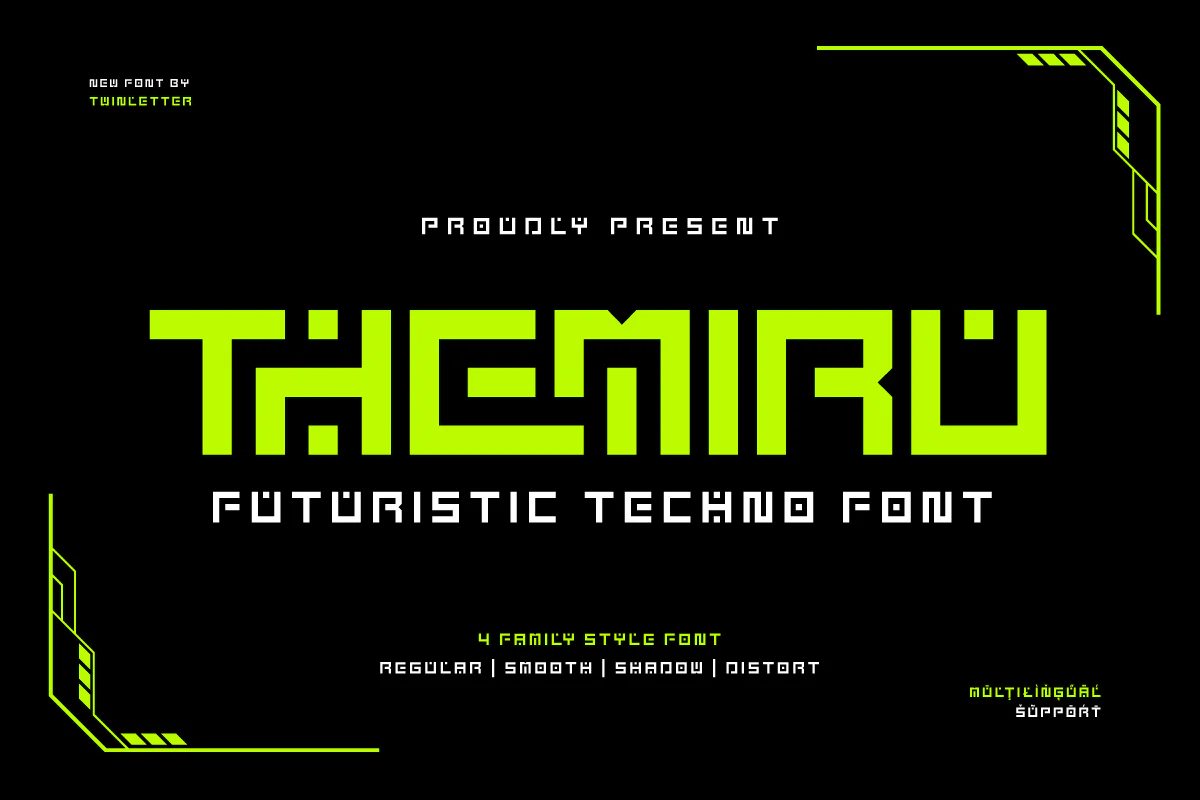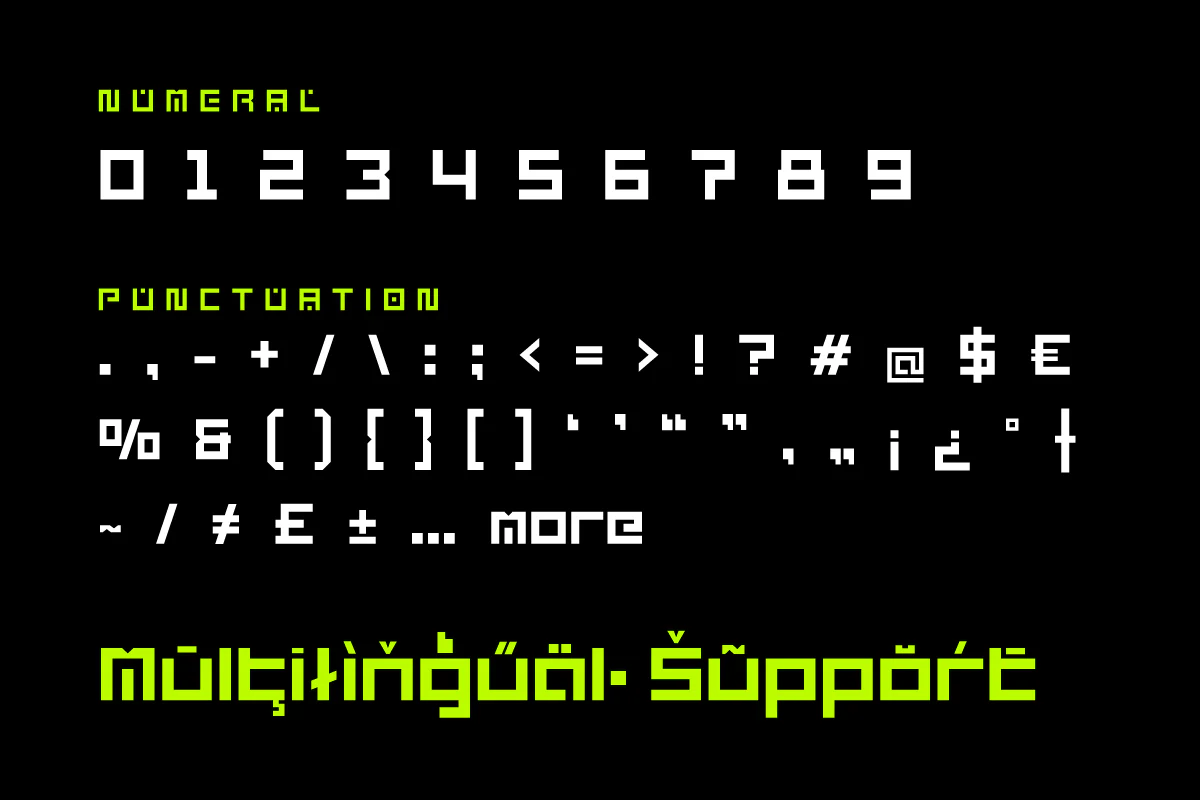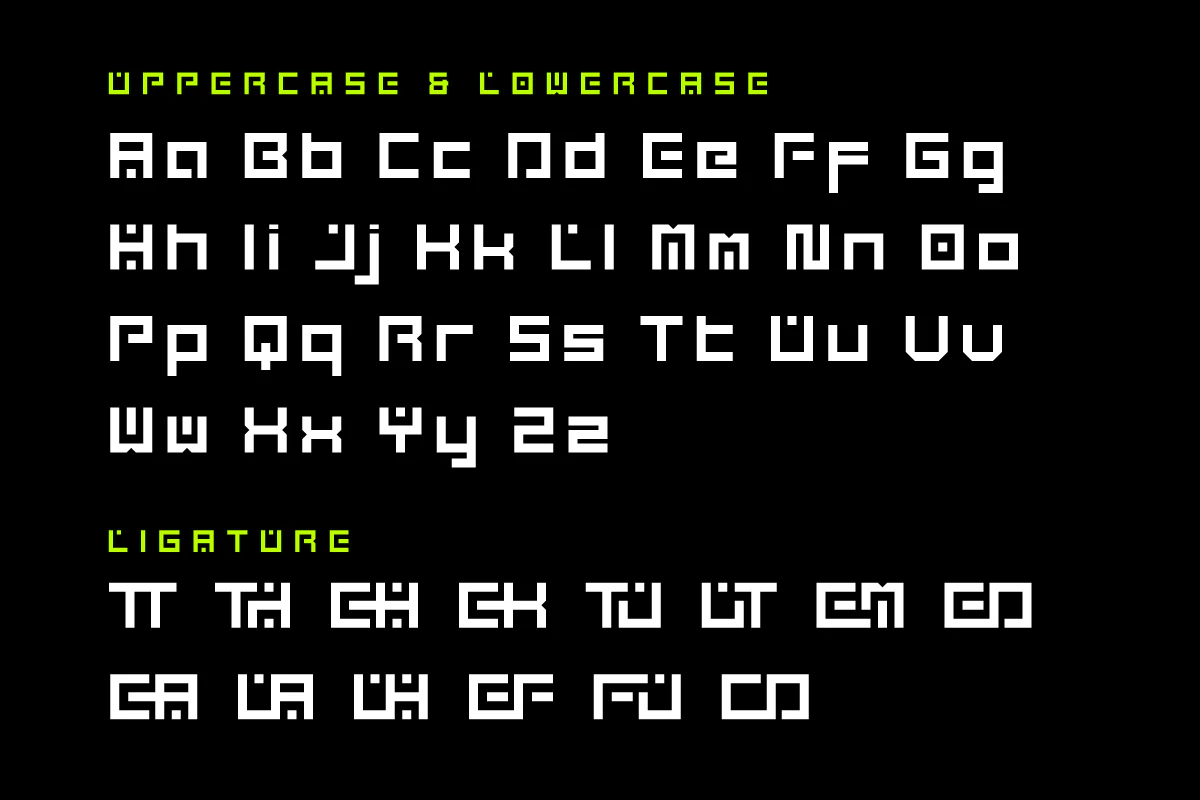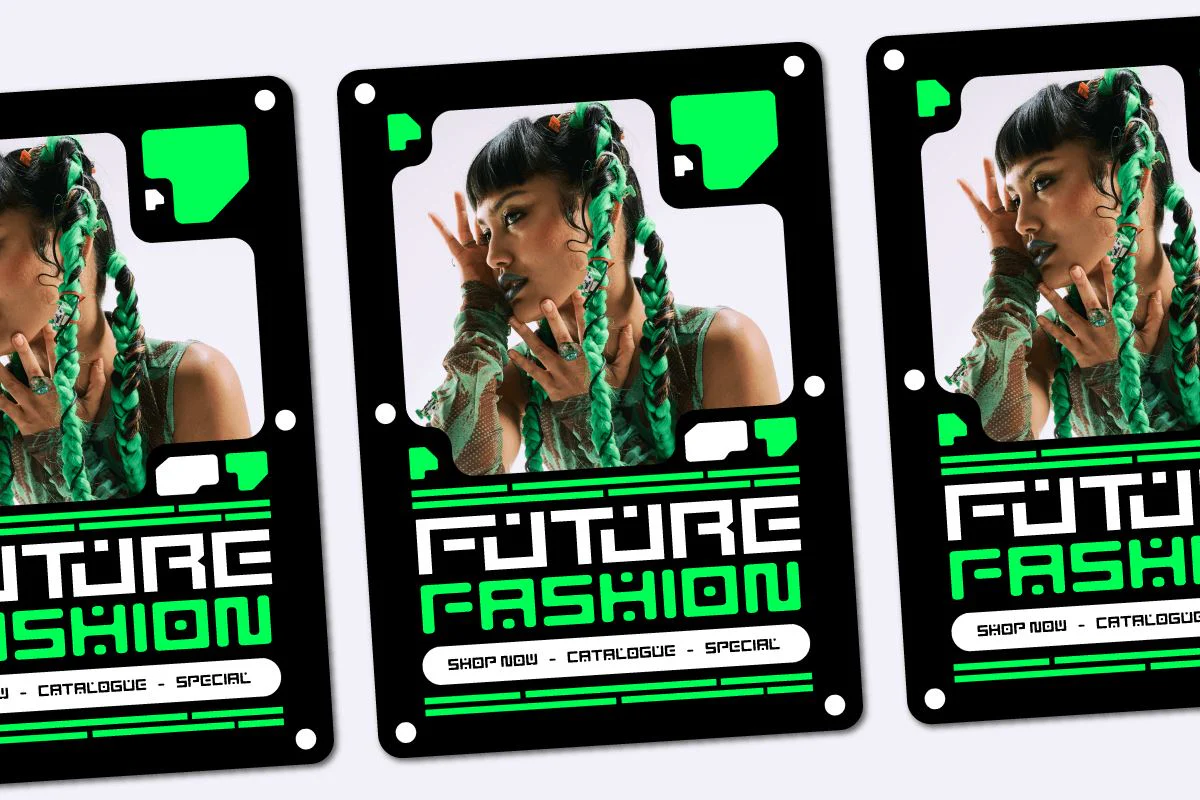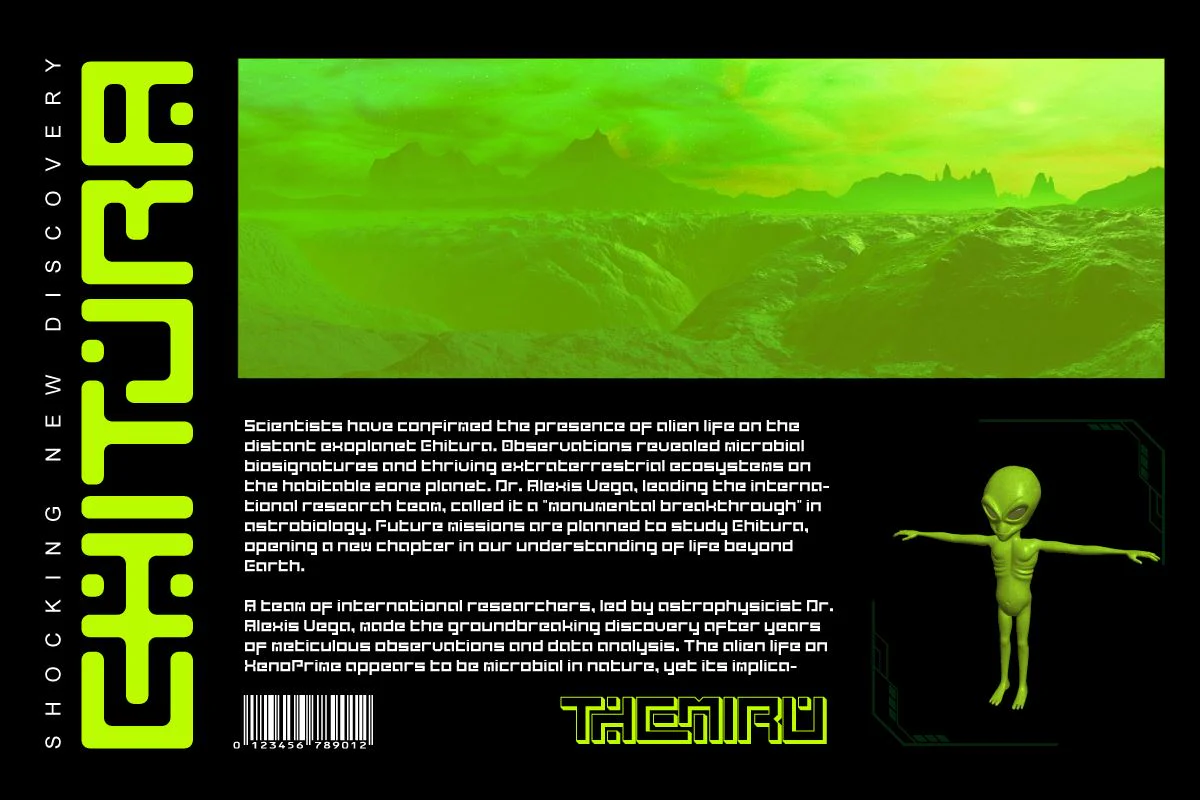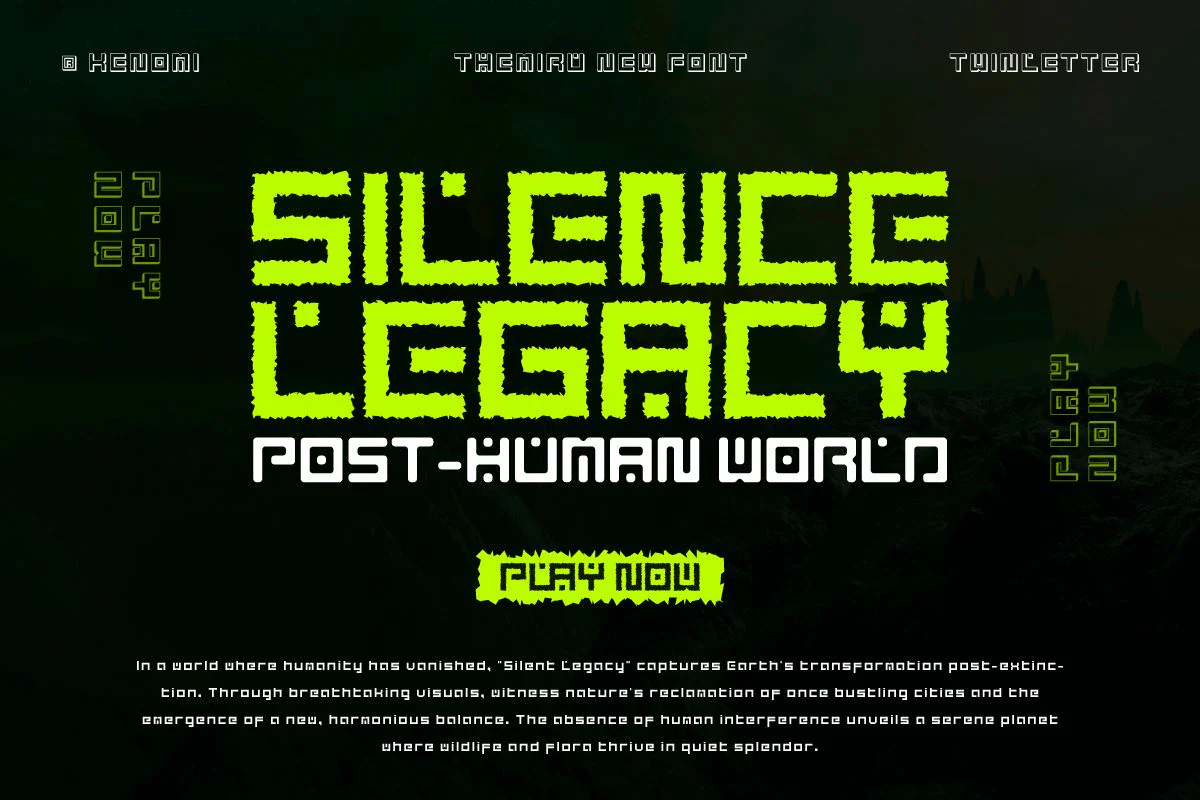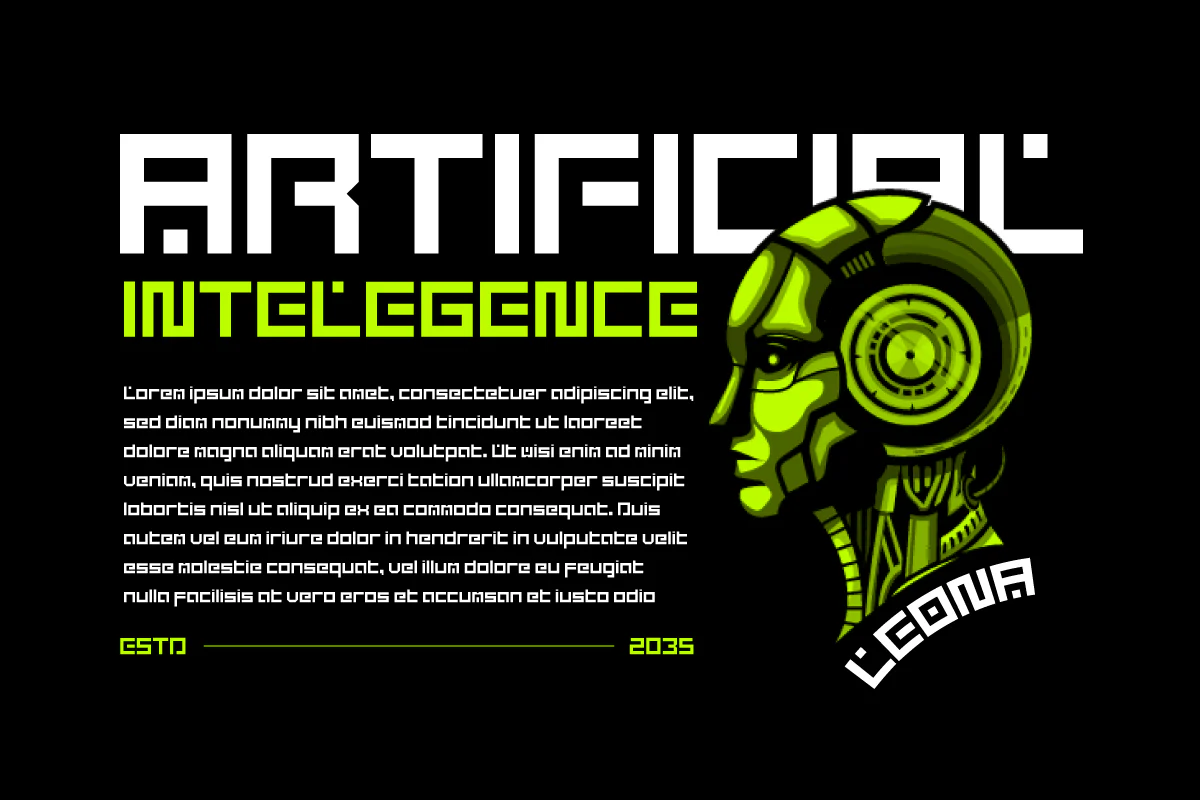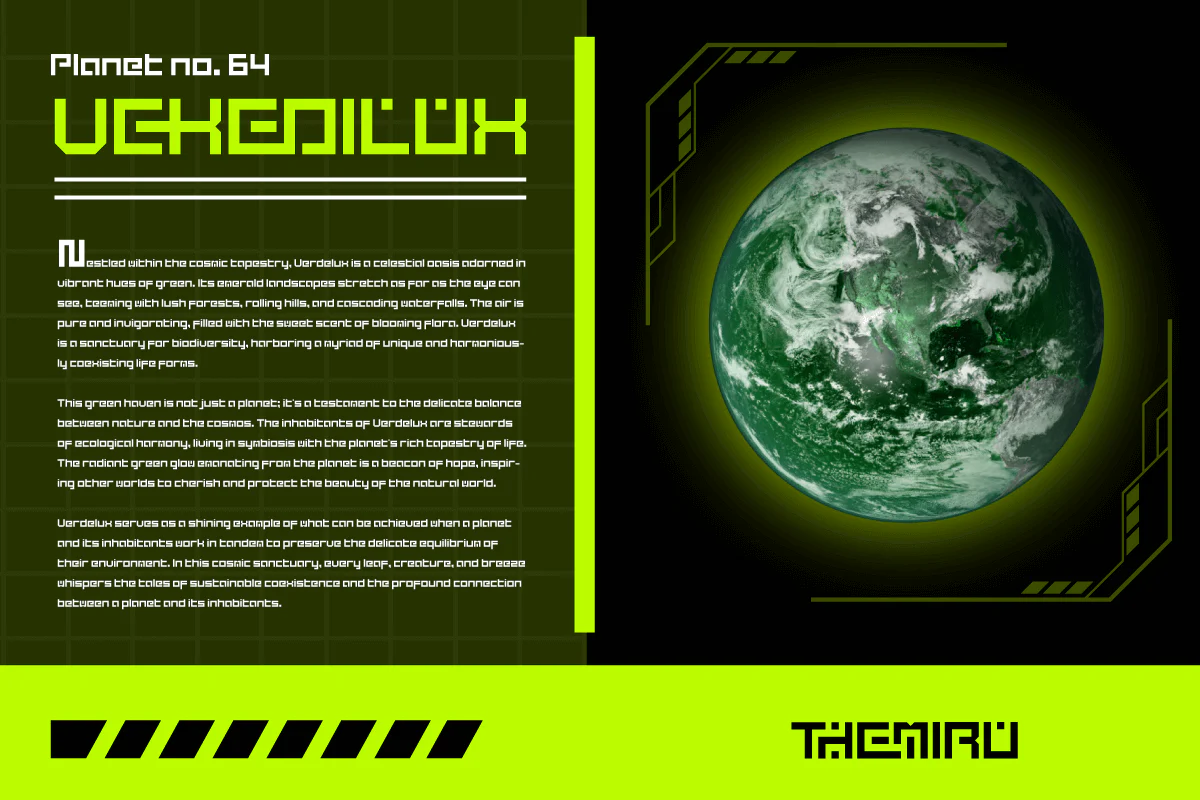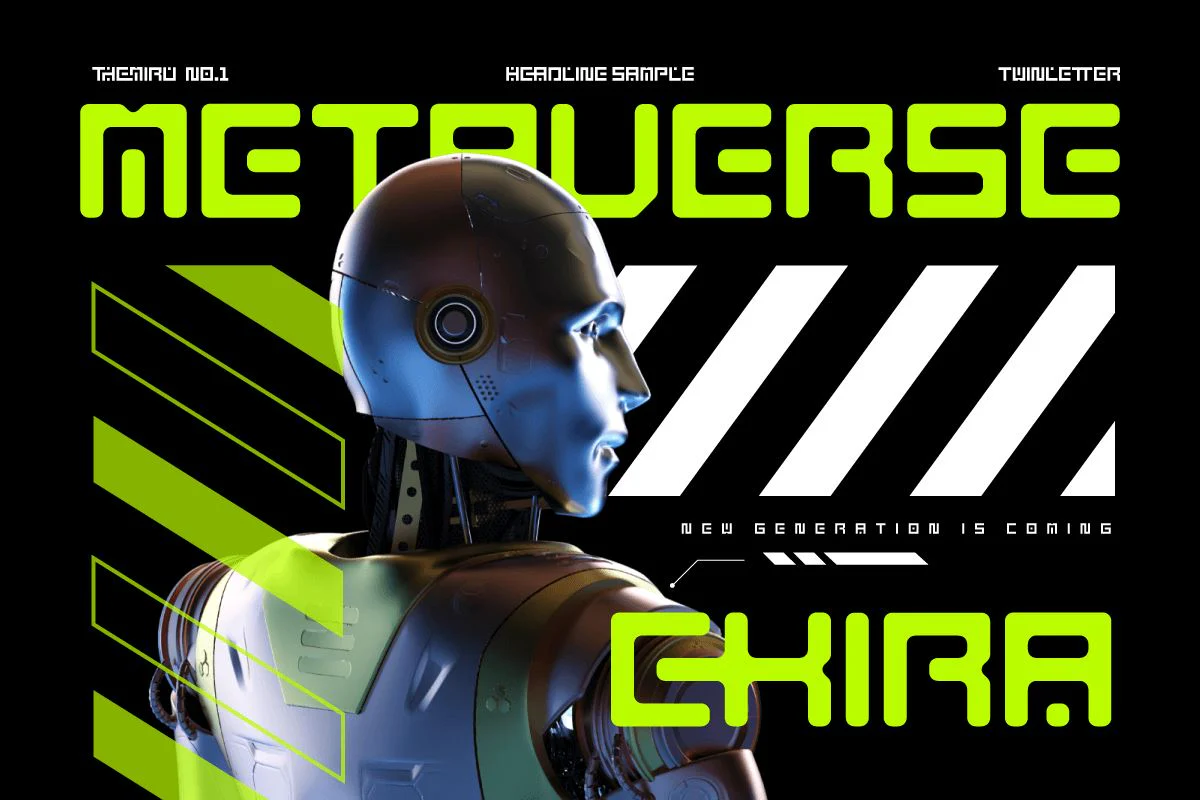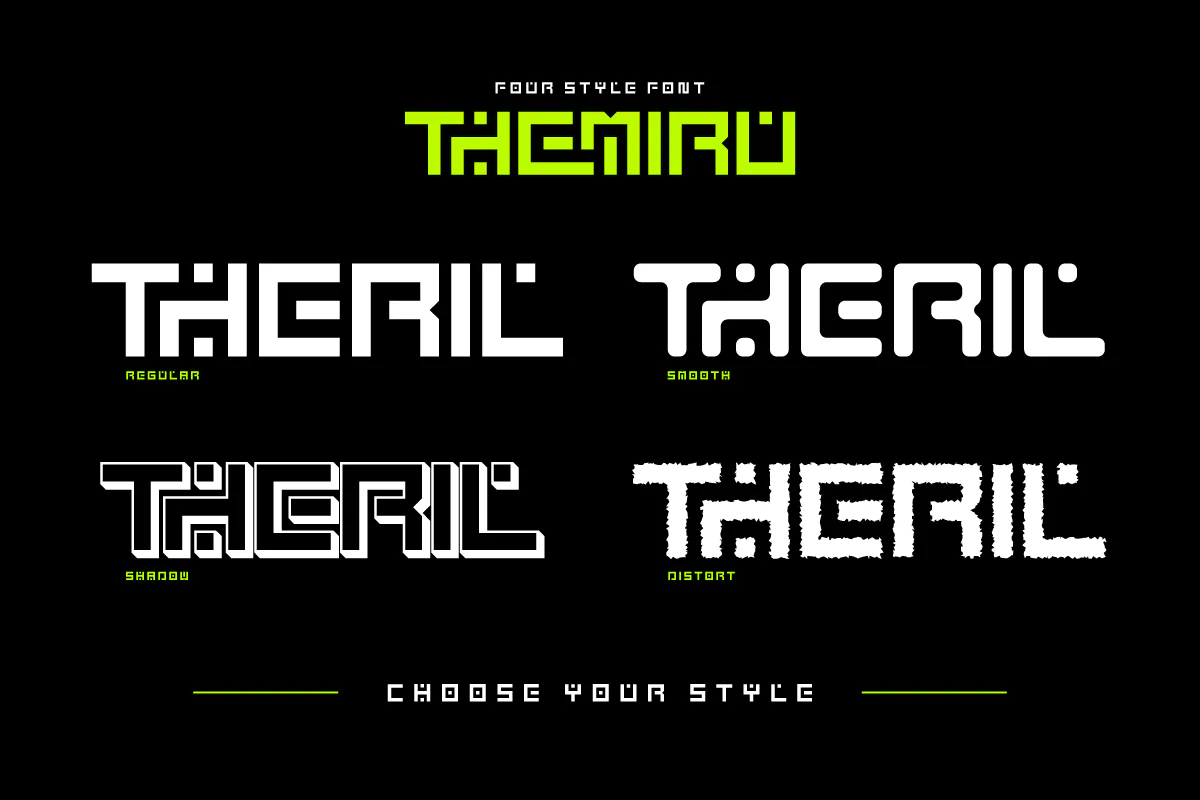
Themiru - Futuristic Tech Font
Welcome to the future of typography with Themiru, a futuristic technology font that combines modern and innovative aesthetics. Designed to create a revolutionary visual experience, Themiru brings an elegant and efficient futuristic touch to every letter. With clean lines and flowing designs, Themiru presents technological advancements in the form of stunning typography. Each letter conveys a sense of sophistication and sharpness, making it an ideal choice for design projects focused on technology, innovation, or the future. Themiru's uniqueness lies in its sophisticated detailing and ability to adapt to a variety of design contexts. From website titles to the latest technology product designs, Themiru is ready to provide a sophisticated and attractive appearance. Explore endless possibilities with Themiru, and give your designs an unmatched modern touch. Instantly bring the future of typography into your projects and let Themiru be the key to opening the door to a new world of impressive visuals. What’s Included: - File font OTF, TTF, WOFF, WOFF2, CSS, HTML - All glyphs and variation - We highly recommend using a program that supports OpenType features and Glyphs panels like many Adobe apps and Corel Draw so that you can see and access all Glyph variations. - PUA Encoded Characters – Fully accessible without additional design software. - Fonts include Multilingual support